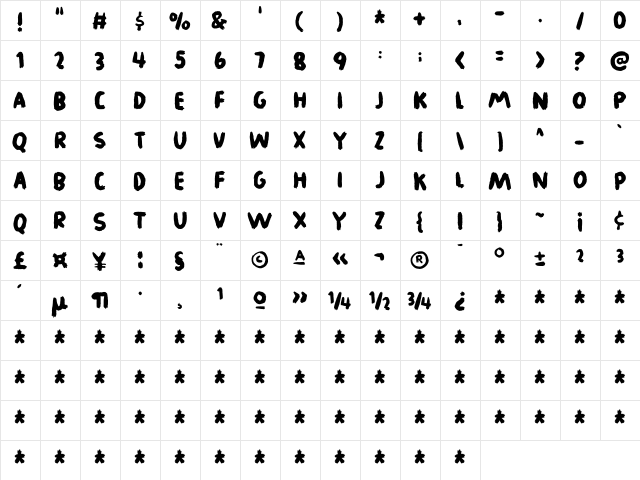
Legwork DEMO Regular
Design Context for Legwork DEMO Typeface
Legwork DEMO is a composed and adaptable typeface that performs quietly and consistently across a wide range of design contexts.
Pro Tip: Use Legwork DEMO in both headline and body roles to test its range before committing to a single application.